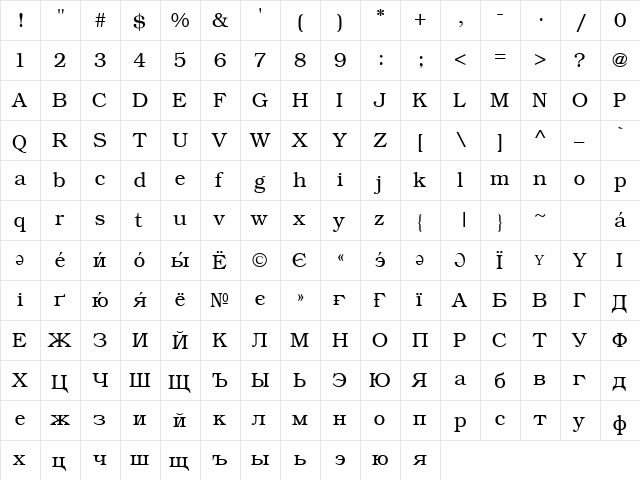
Kazcyr2 Regular
Design Context for Kazcyr2 Typeface
Kazcyr2 takes a measured approach to typography — its balanced proportions and neutral character make it a reliable workhorse for both digital and print work.
Pro Tip: Pair Kazcyr2 with a font of contrasting weight or personality to build a more expressive typographic hierarchy.